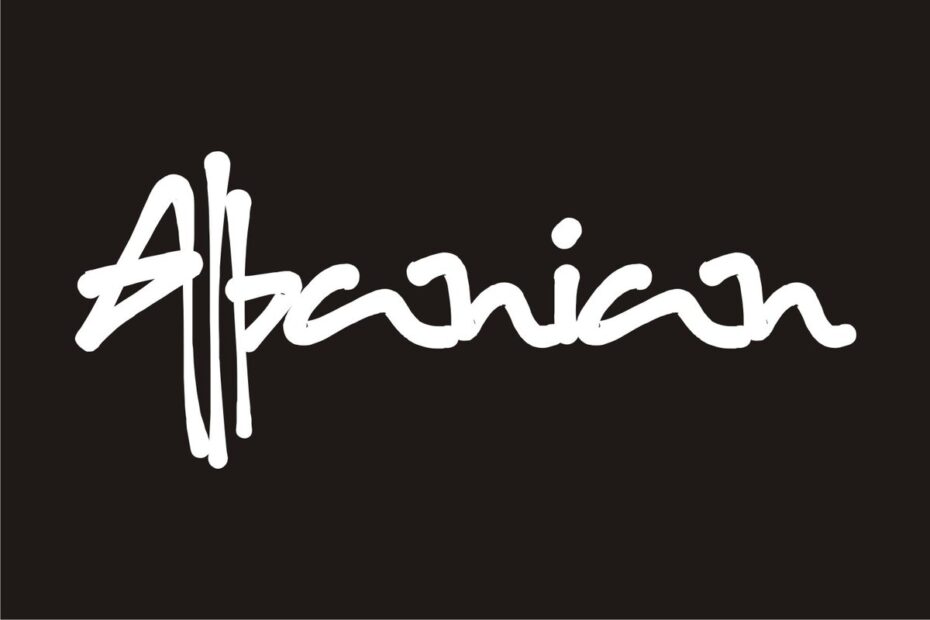
The Perfect Font for Your Next Design Project
Have you ever been working on a design project and you just can’t seem to find the right font? You know, that one font that makes your design pop and sets it apart from the rest. It’s like searching for a needle in a haystack, until suddenly, you stumble upon it. For me, that moment happened when I discovered the Albanian Font.
With its fun and casual vibe, the Albanian Font is perfect for adding a modern touch to your designs. Its variable width and height make it a great option for displays, and its versatility is unmatched. Whether you’re designing a logo, a brochure, or a website, the Albanian Font is a valuable asset for any designer. It’s a game-changer that can take your designs to the next level.
Albanian Font Key Features
- Font Family: Albanian Font is a Unicode font that supports the Albanian language, designed to provide accurate representation of the language’s unique characters.
- Unique Characteristics: Albanian Font features a unique set of characters, including the Albanian alphabet, diacritical marks, and ligatures, making it an essential tool for Albanian language users.
- Language Support: The font supports the Albanian language, as well as other languages that use the Latin alphabet, including English, Spanish, French, and more.
Review of Albanian Font
I recently had the chance to work with the Albanian Font, and I must say it’s been an interesting experience. ✨ One thing that really stands out is its unique aesthetic. The font is designed to resemble traditional Albanian script, which gives it a distinctive look that’s perfect for cultural or linguistic projects.
Another thing I appreciate about the Albanian Font is its versatility. It comes in a range of weights, from light to bold, which makes it easy to use in a variety of contexts. ✨ I’ve also been impressed by the font’s legibility, even at small sizes.
While the Albanian Font has a lot to offer, there are some limitations to be aware of. ⚠️ For one thing, the font’s unique design can make it difficult to read for non-native speakers. Additionally, the font may not be suitable for projects that require a more modern or sleek aesthetic.
Here are some specific limitations to consider:
- May not be suitable for projects requiring a modern or sleek aesthetic
- Can be difficult to read for non-native speakers
- May not be compatible with all operating systems or devices
Overall, I think the Albanian Font is a great choice for cultural or linguistic projects. While it may have some limitations, its unique aesthetic and versatility make it a valuable addition to any designer’s toolkit.
Practical Application Guide for Albanian Font
Here are some tips to help you get the most out of Albanian font:
- Use the font consistently throughout your design to maintain a cohesive look.
- Use the font in combination with other design elements, such as images and colors, to create a unique look.
Here are some common use cases for Albanian font:
- Cultural events and celebrations.
- Language learning materials.
- Business communications with Albanian-speaking clients.
- Design projects that require a unique and authentic Albanian look.
Comparison: Arial is more modern and clean compared to Albanian Font, which has a more traditional feel. Arial is also more versatile and can be used in a wider range of contexts.
Are there any font styles available for the Albanian Font?
Yes, there are various font styles available for the Albanian Font, including serif, sans-serif, and script fonts. These font styles can be used to create a range of visual effects and to suit different design needs. You can search for Albanian Font styles online or check with font vendors for available options.